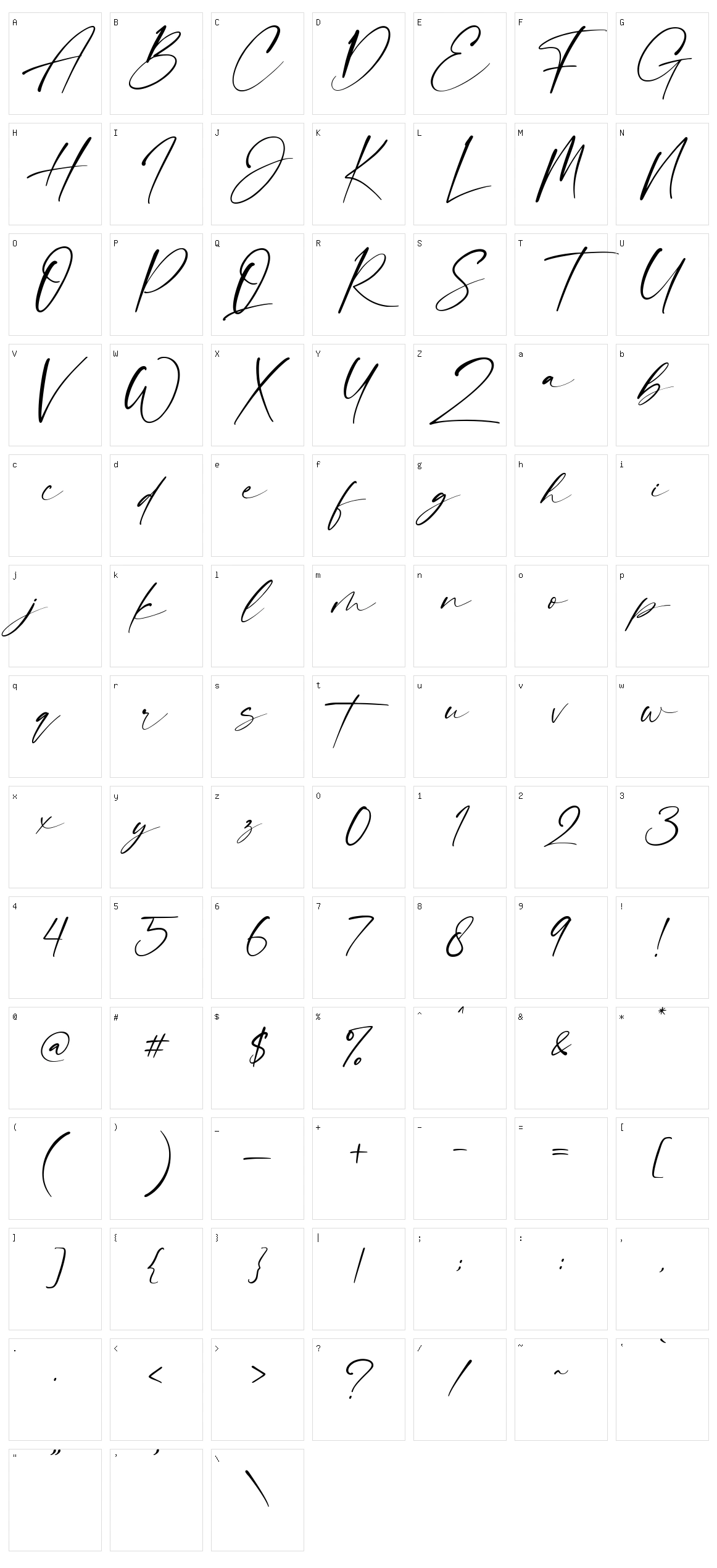
The free font Dalmantian is carefully designed by Dav studio, showcasing a thoughtful balance of creativity and usability and falls under the Script font style. When you download the ZIP file, it contains only 95.85 KB of font files, making it lightweight and quick to download. Please review the license details below to understand permitted usage and distribution rights. If license information is not available, we recommend using this font for personal projects only or contacting the author directly for commercial usage permissions.